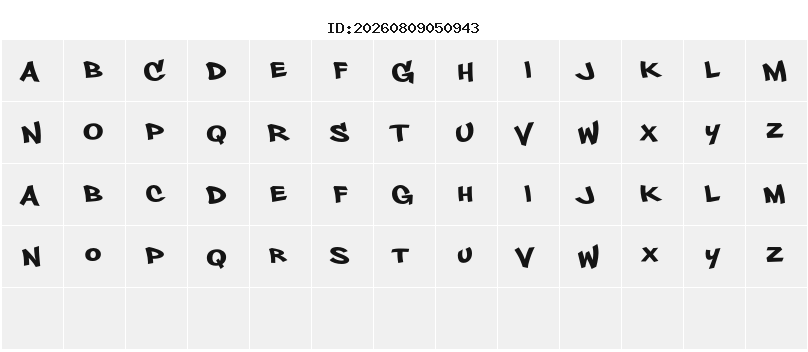
Philly Sans Preview
• Font Name: Philly Sans
• Full Font Name: PhillySans
• PostScript Name: PhillySans
About Philly Sans.otf
Philly Sans.otf is a modern, elegant sans-serif font designed for ultimate readability and visual harmony. Perfect for branding, headlines, web design, and print materials.